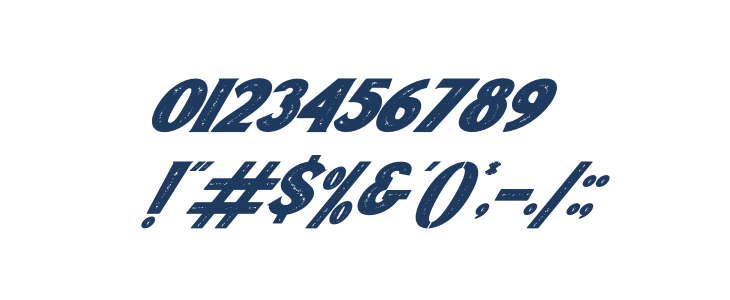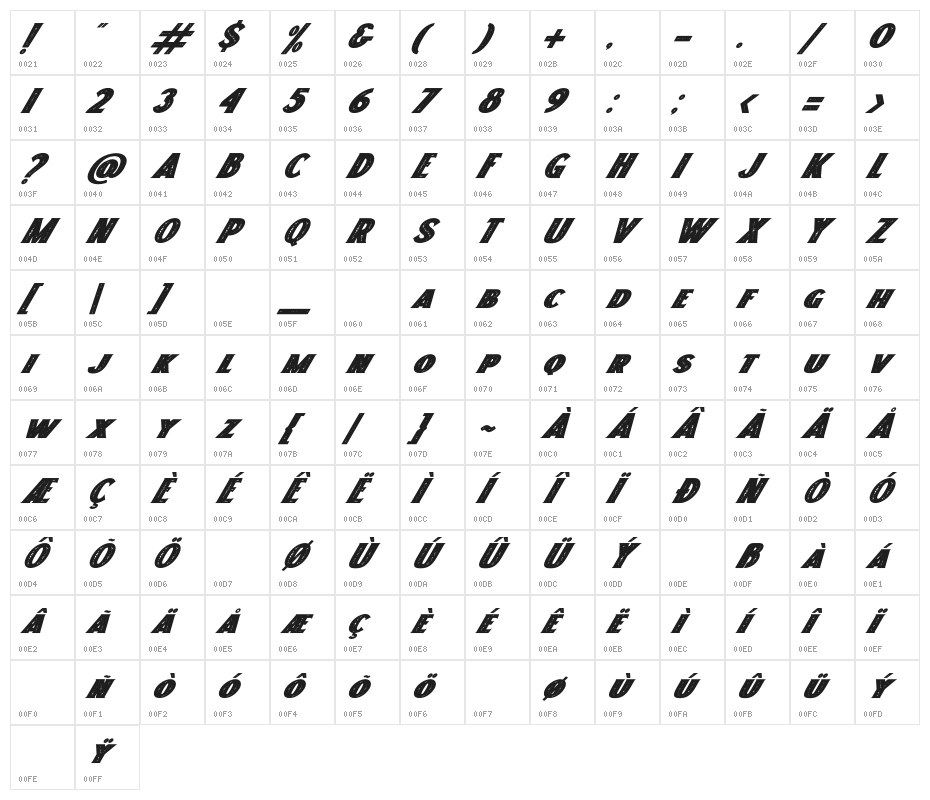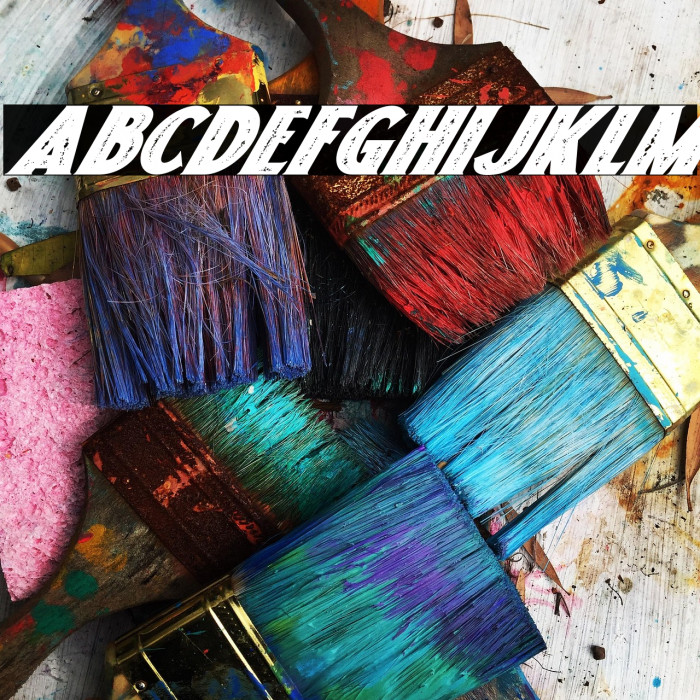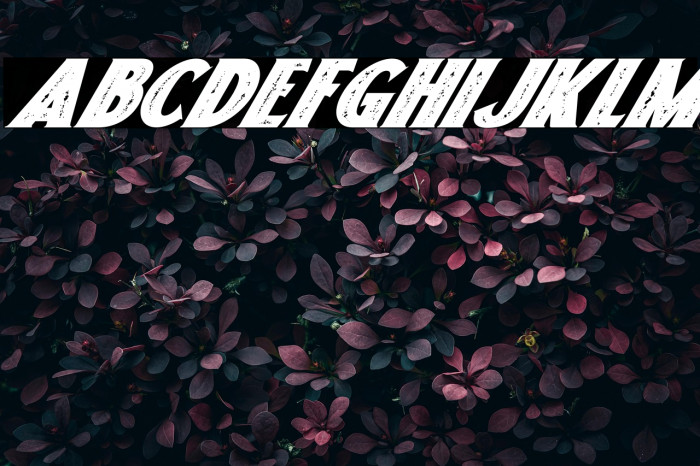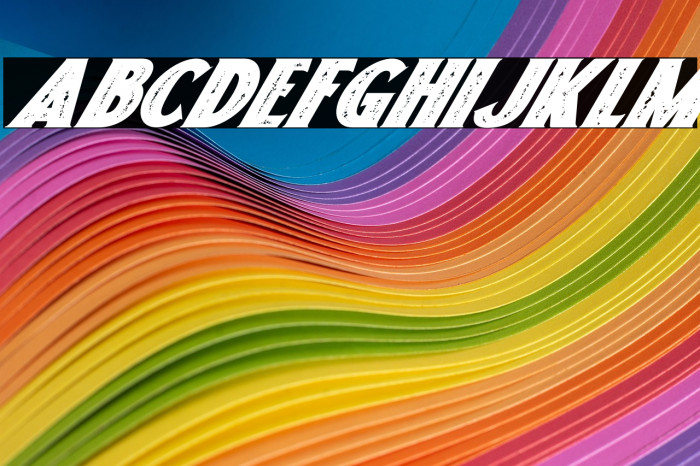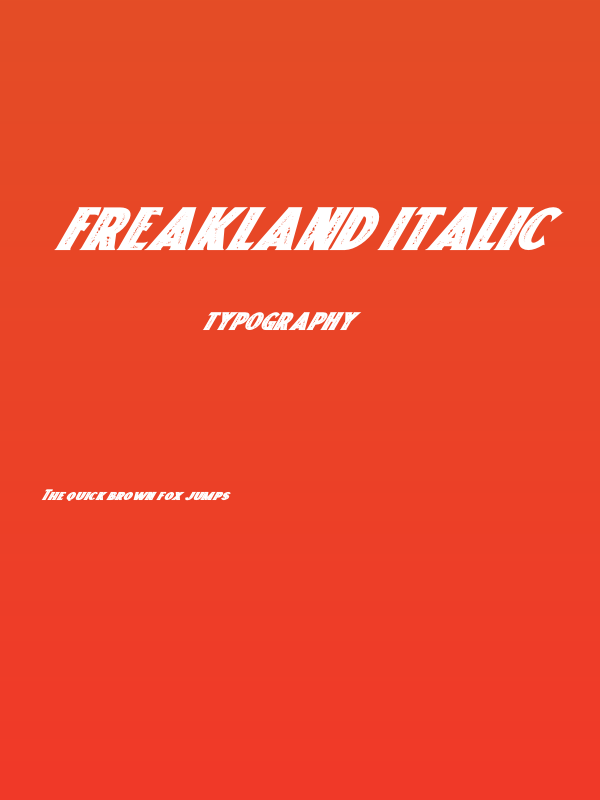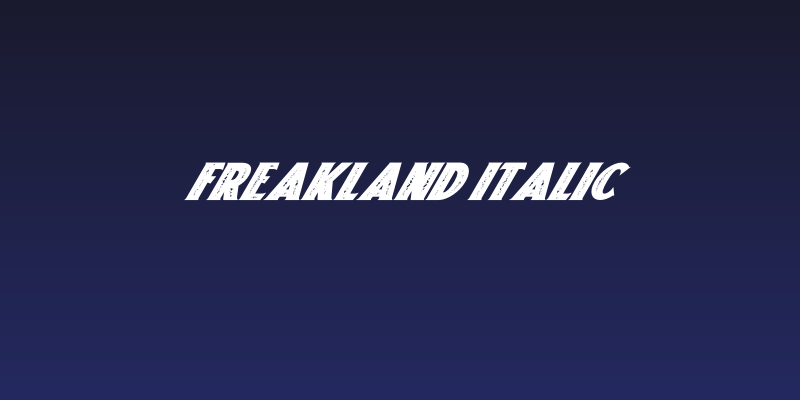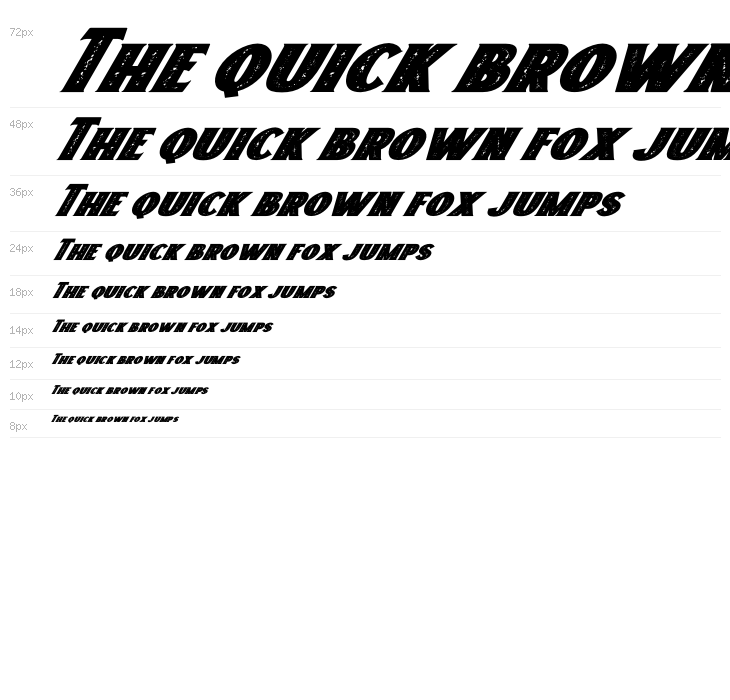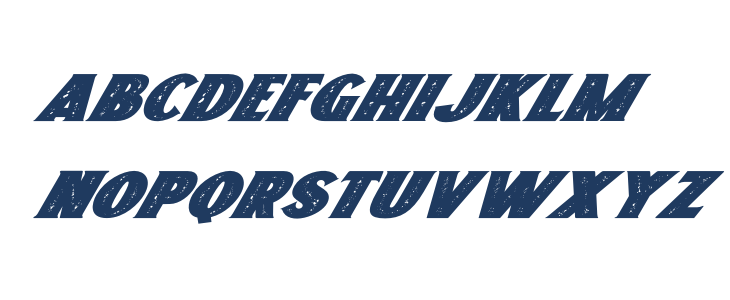
Freakland Italic Font
Freakland Italic Description
This font features a bold and dynamic style with a distressed, textured appearance that adds a sense of ruggedness and character. The italicized slant gives it a forward-moving energy, making it suitable for attention-grabbing designs. The uppercase and lowercase letters maintain a consistent weight, contributing to a cohesive look. The numbers and special characters are designed to match the boldness and texture of the letters, ensuring uniformity across all elements. The overall style is both modern and edgy, making it ideal for projects that require a strong visual impact.
| Overall Style | Modern, Edgy |
| Proposed Projects | Ideal for posters, album covers, branding, and any design needing a bold statement. |